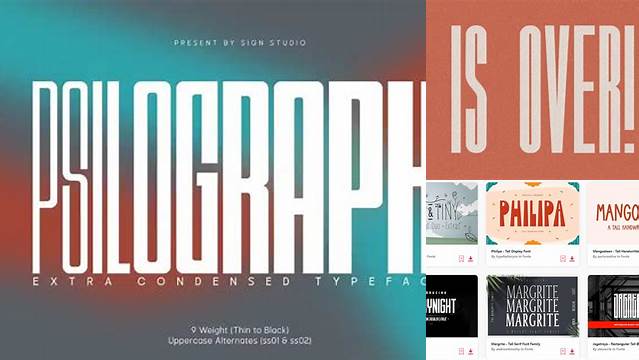
Tall Stretched Fonts: Design Guide
Are you guys looking to add a unique and eye-catching element to your designs? Then let's talk about tall stretched fonts! These fonts, also known as condensed or elongated fonts, are a fantastic way to make a statement and add a touch of modern elegance to your projects. In this comprehensive guide, we'll dive deep into the world of tall fonts, exploring their uses, benefits, and some stunning examples to inspire you. So, buckle up and get ready to stretch your typographic horizons!
What are Tall Stretched Fonts?
Let's start with the basics. Tall stretched fonts, in essence, are typefaces where the vertical height of the characters is significantly greater than their width. This gives them a distinctive, elongated appearance that can be both striking and sophisticated. Think of it as the typographic equivalent of a skyscraper – towering and visually impactful.
These fonts achieve their stretched look in a couple of ways. Some fonts are inherently designed with a tall and narrow structure, while others are created by programmatically stretching a regular font. Either way, the result is a typeface that commands attention and can add a unique flair to your designs.
The Anatomy of a Tall Stretched Font
To truly understand tall stretched fonts, it's helpful to break down their key characteristics:
- Height: This is the defining feature, of course! The characters are noticeably taller than they are wide, creating a vertical emphasis.
- Width: The width of the characters is typically narrower than standard fonts, which contributes to the stretched appearance.
- Weight: Tall stretched fonts can come in various weights, from thin and delicate to bold and impactful. The weight you choose will depend on the overall tone and purpose of your design.
- Spacing: The spacing between letters (kerning) and lines (leading) is crucial for readability. With tall stretched fonts, careful attention to spacing is essential to prevent the text from looking cramped or awkward.
A Brief History of Tall Stretched Fonts
The use of tall stretched fonts isn't exactly a new trend. In fact, they have a rich history dating back to the early days of printing. Condensed typefaces were initially developed to save space in newspapers and books, allowing more text to fit on a page. However, their aesthetic appeal quickly became apparent, and they began to be used for display purposes as well.
Throughout the 20th century, tall fonts experienced periods of popularity, particularly in Art Deco designs and mid-century modern typography. Today, they are experiencing a resurgence in popularity, thanks to their versatility and ability to create a contemporary, stylish look.
Why Use Tall Stretched Fonts?
Now that we know what tall stretched fonts are, let's explore why you might want to use them in your designs. There are several compelling reasons to consider these unique typefaces:
1. Visual Impact and Attention-Grabbing
One of the most significant advantages of tall stretched fonts is their ability to grab attention. The unusual proportions of these fonts instantly make them stand out, ensuring that your message is noticed. Think of them as the typographic equivalent of raising your hand in a crowded room – they demand to be seen.
This makes them particularly effective for headlines, titles, and other display text where you want to make a bold statement. Whether you're designing a poster, a website header, or a magazine cover, using tall fonts can help you create a visually striking composition that captivates your audience.
2. Modern and Sophisticated Aesthetic
Tall stretched fonts often evoke a sense of modern elegance and sophistication. Their clean lines and elongated forms can create a sleek and contemporary look, making them a popular choice for brands and projects that want to project a stylish image. They bring a touch of the avant-garde, the feel of a high-fashion magazine, and the sharpness of modern architecture.
This aesthetic is particularly well-suited for industries such as fashion, beauty, technology, and design. However, elongated fonts can also be used effectively in other contexts where you want to convey a sense of sophistication and refinement.
3. Space Efficiency
As mentioned earlier, tall stretched fonts were initially developed to save space. While this may not be the primary consideration for all designers today, the space-saving aspect can still be a valuable benefit in certain situations. If you're working on a project with limited space, such as a brochure or a business card, utilizing tall fonts can help you fit more text into the available area without sacrificing readability.
4. Versatility and Variety
Despite their distinctive appearance, tall stretched fonts are surprisingly versatile. They come in a wide range of styles, from elegant serifs to clean sans-serifs, allowing you to find the perfect typeface for your project. Whether you're looking for a font that is classic and refined or one that is bold and modern, there's likely a tall font that fits the bill.
5. Creating Visual Hierarchy
Tall stretched fonts are excellent tools for creating visual hierarchy in your designs. By using a tall font for headlines or titles, you can instantly draw the reader's eye and establish a clear focal point. This helps to guide the viewer through the design and ensure that the most important information is easily accessible.
Examples of Stunning Tall Stretched Fonts
To give you a better idea of the range and versatility of tall stretched fonts, let's take a look at some specific examples:
1. Bebas Neue
Bebas Neue is perhaps the quintessential tall stretched font. This sans-serif typeface is clean, modern, and highly legible, making it a popular choice for headlines and display text. Its tall, narrow proportions give it a distinctive presence, and its versatility allows it to be used in a wide range of design projects.
2. Montserrat
While not strictly a stretched font, Montserrat has a tall and slightly condensed appearance that makes it a great option for those looking for a modern and elegant sans-serif. Its clean lines and geometric forms give it a sophisticated feel, and it works well in both headlines and body text.
3. Oswald
Oswald is another popular sans-serif tall font that is often used for headlines and titles. Its slightly rounded terminals and clean lines give it a friendly and approachable feel, while its tall proportions ensure that it stands out.
4. Playfair Display
For those seeking a more traditional and elegant tall stretched font, Playfair Display is an excellent choice. This serif typeface has a classic, refined appearance that is perfect for projects that require a touch of sophistication. It's especially well-suited for headlines and titles in print design.
5. Raleway
Raleway is a versatile sans-serif elongated font that works well in a variety of contexts. Its clean lines and geometric forms give it a modern feel, while its tall proportions make it a great choice for headlines and display text. It also comes in a wide range of weights, allowing you to fine-tune the visual impact of your typography.
How to Use Tall Stretched Fonts Effectively
While tall stretched fonts can be a powerful design tool, it's essential to use them effectively to avoid creating a cluttered or illegible design. Here are some tips to keep in mind:
1. Use Sparingly
Tall stretched fonts are best used sparingly, as too much can overwhelm the viewer. Reserve them for headlines, titles, and other key text elements where you want to make a statement. Avoid using them for large blocks of body text, as this can make the text difficult to read. Remember, a little tall font goes a long way!
2. Pay Attention to Kerning and Leading
Kerning (the spacing between letters) and leading (the spacing between lines) are crucial for readability, especially with tall stretched fonts. Because these fonts are narrower than standard typefaces, it's essential to ensure that the letters aren't too close together, which can make the text look cramped. Similarly, the leading should be adjusted to prevent lines of text from colliding.
3. Consider the Context
The best tall fonts to use will depend on the overall tone and purpose of your design. A formal, elegant project might call for a serif tall stretched font, while a modern, minimalist design might be better suited to a sans-serif. Think about the message you're trying to convey and choose a typeface that aligns with your goals.
4. Pair Wisely
When pairing tall fonts with other typefaces, it's essential to choose fonts that complement each other. A classic approach is to pair a tall font with a more standard typeface for body text. This creates a visual contrast that helps to draw attention to the headlines while maintaining readability in the body text.
5. Don't Over-Stretch
While the name suggests stretching, avoid programmatically stretching a font beyond its intended proportions. This can distort the letterforms and make the text look awkward. Stick to tall stretched fonts that are designed as such, and use the font's built-in weights and styles to achieve the desired effect.
Conclusion: Embrace the Verticality of Tall Stretched Fonts
Tall stretched fonts are a powerful tool for designers looking to make a statement. Their unique proportions and visual impact can add a touch of modern elegance to any project, making them a valuable addition to your typographic toolkit. By understanding their history, characteristics, and best practices for use, you can effectively incorporate these typefaces into your designs and create stunning visual compositions.
So, go ahead and explore the world of vertical typography. Experiment with different tall stretched fonts, and discover how they can help you elevate your designs to new heights. Remember, the key is to use them thoughtfully and strategically, and you'll be amazed at the impact they can have. Now, go forth and stretch your typographic creativity!